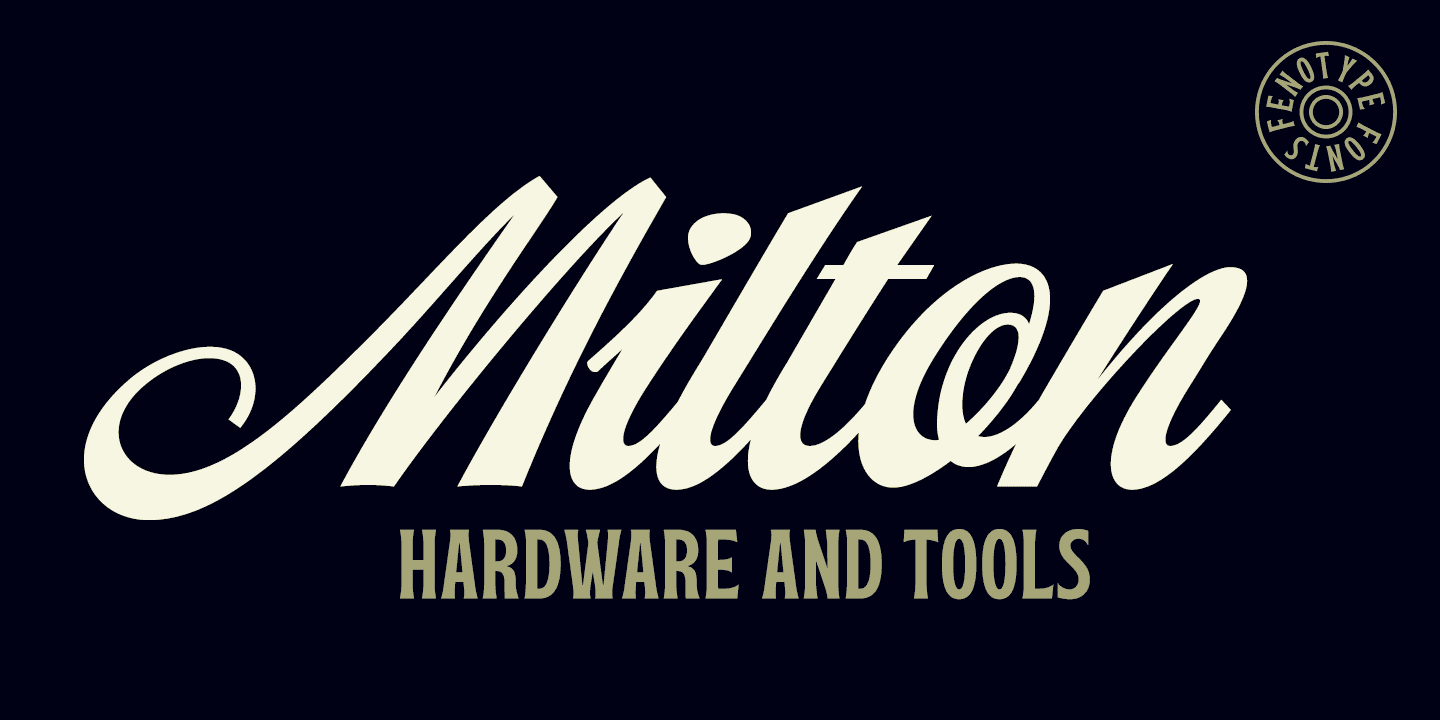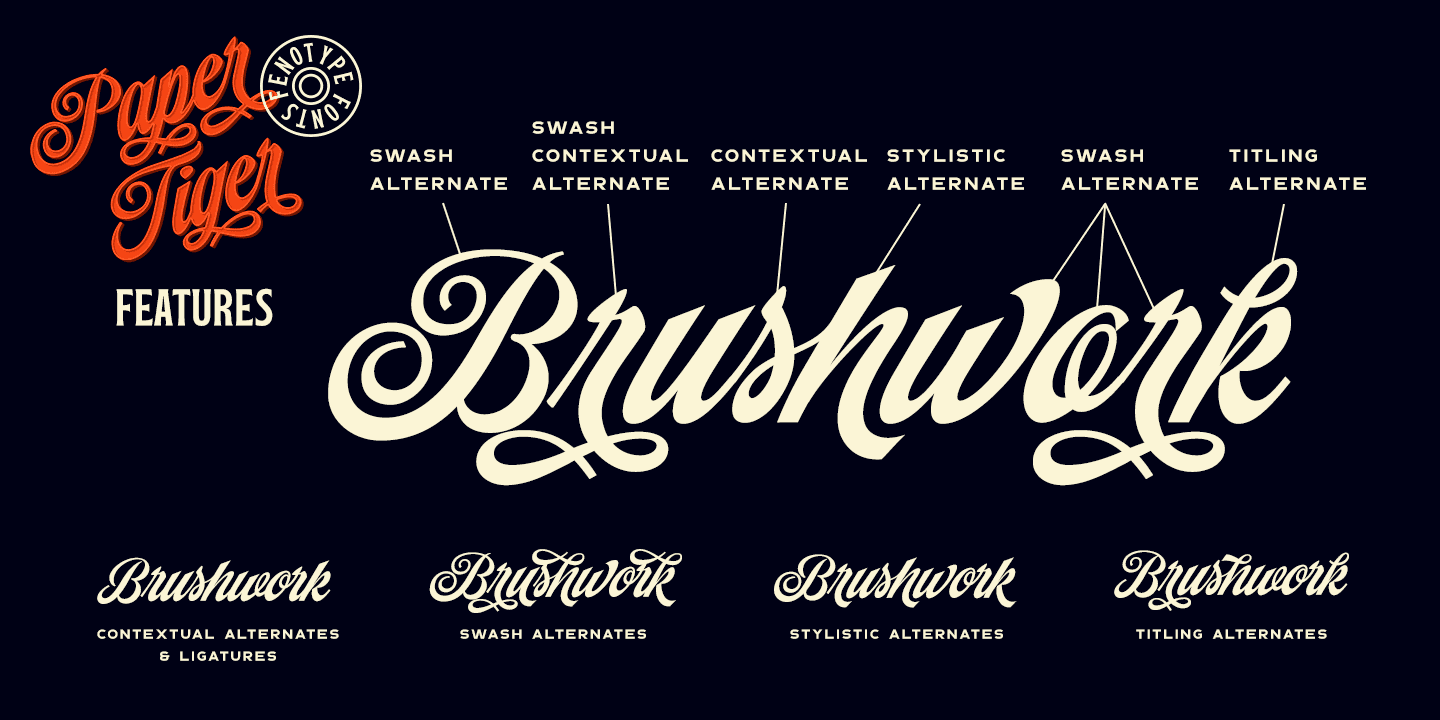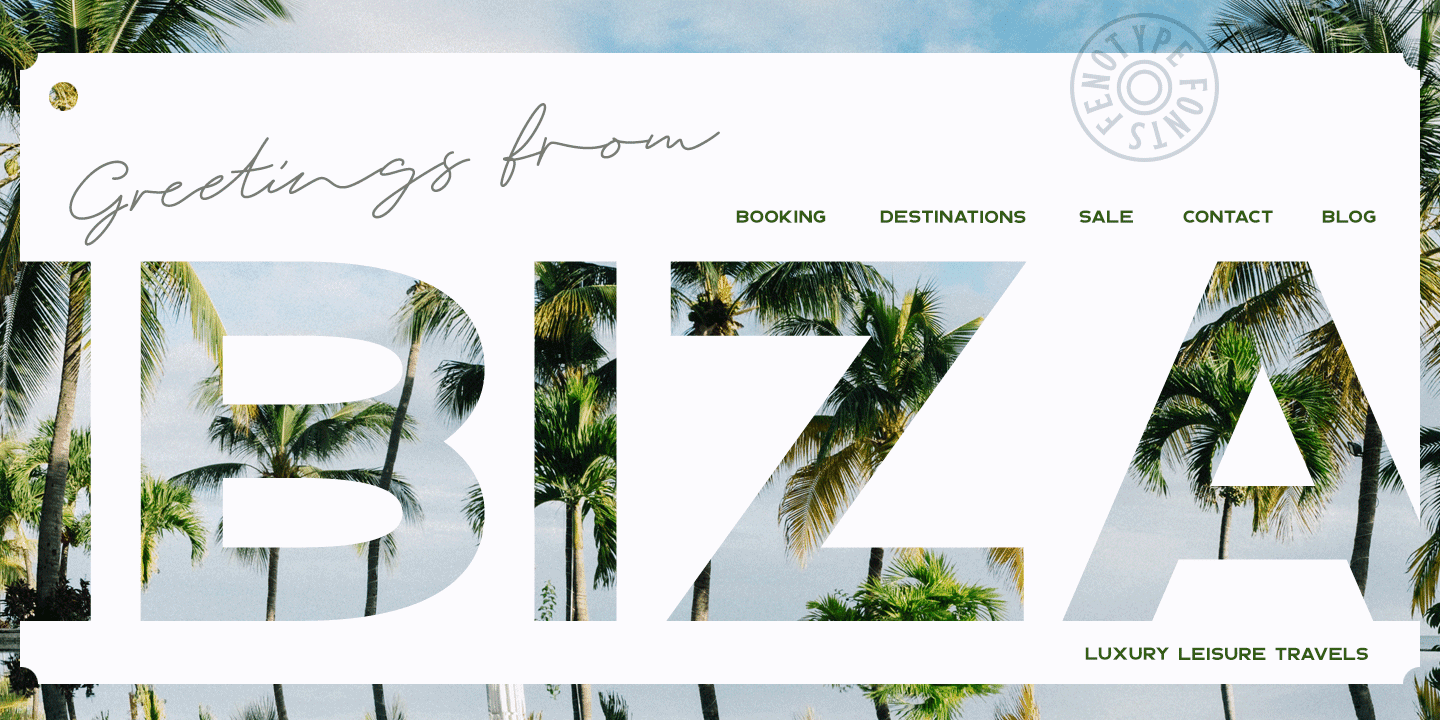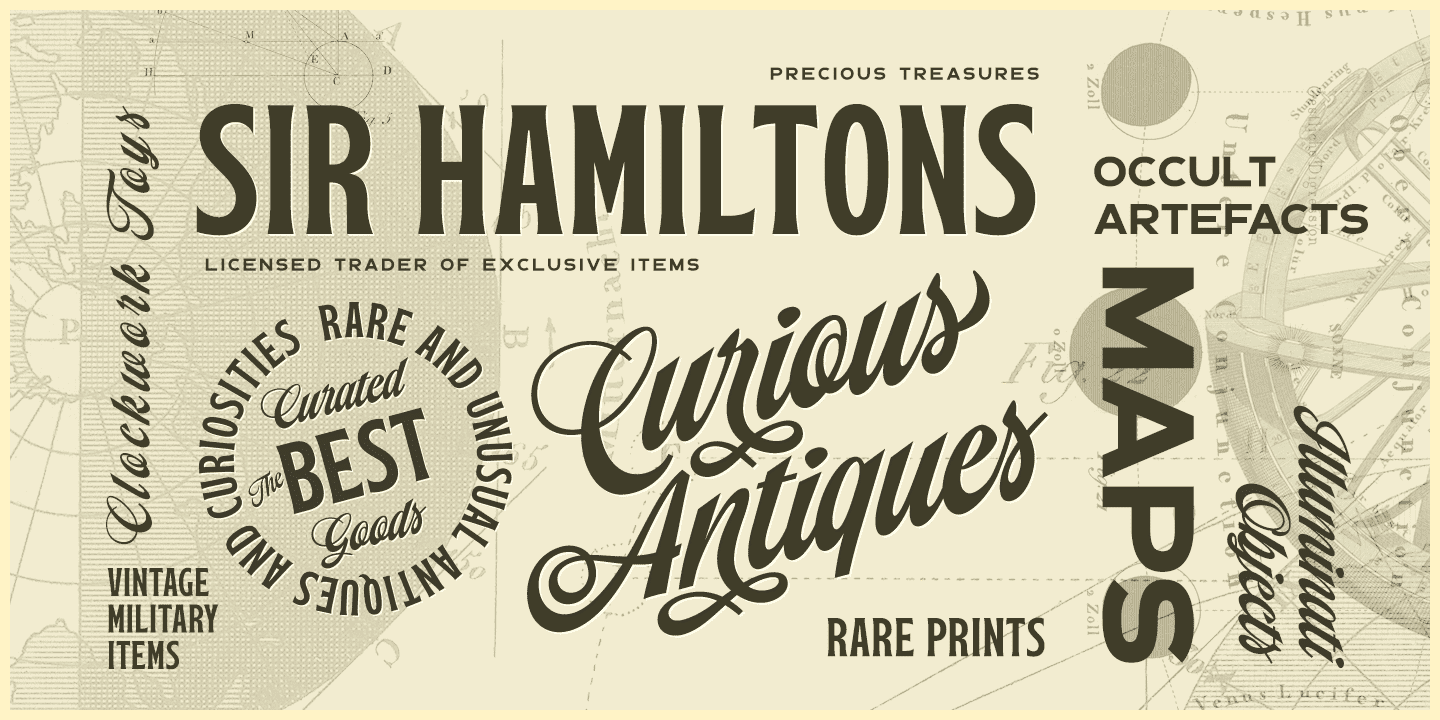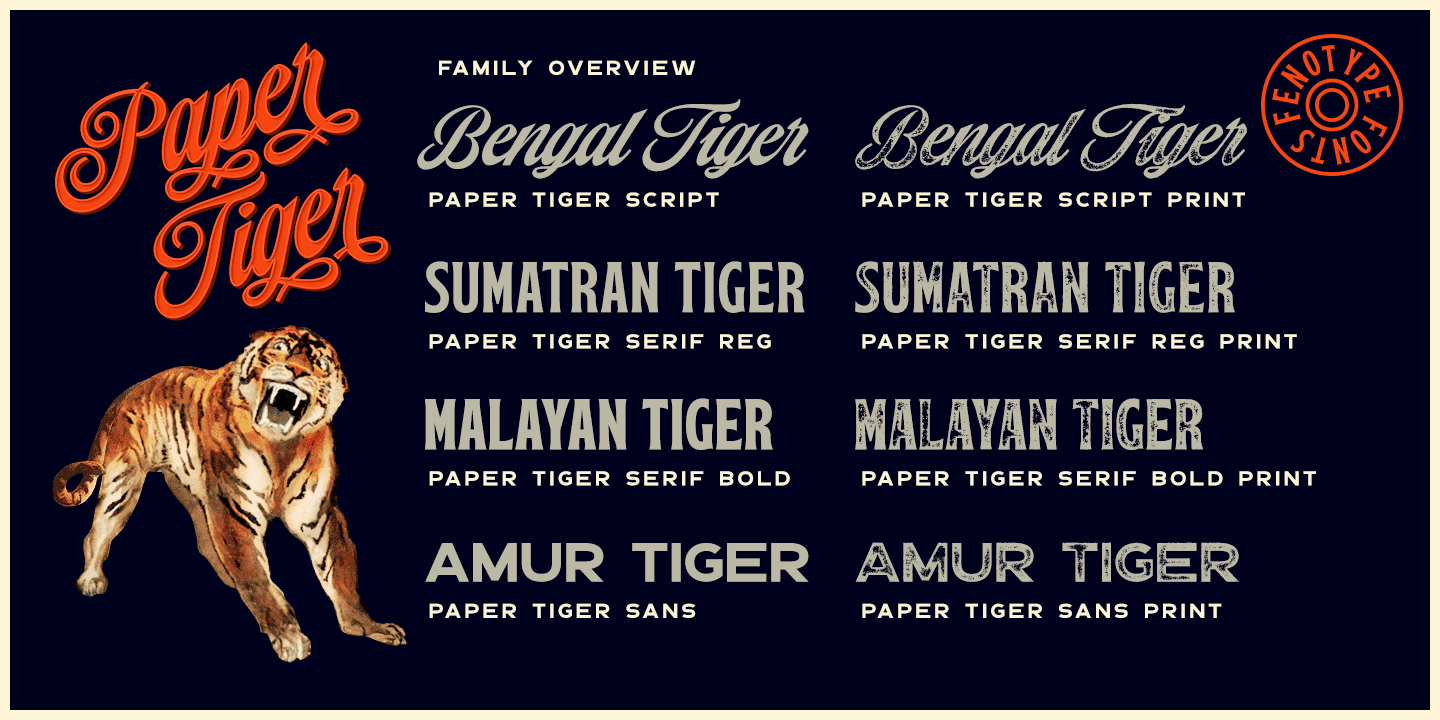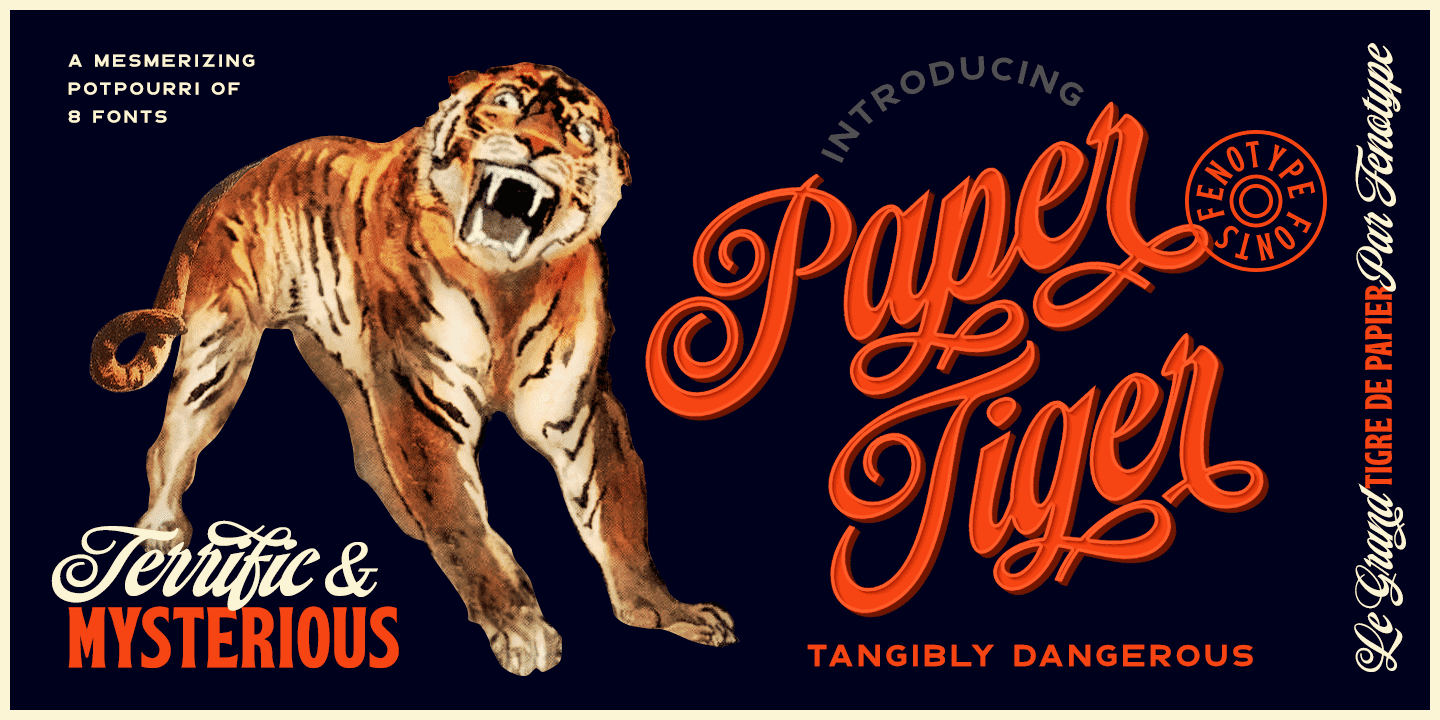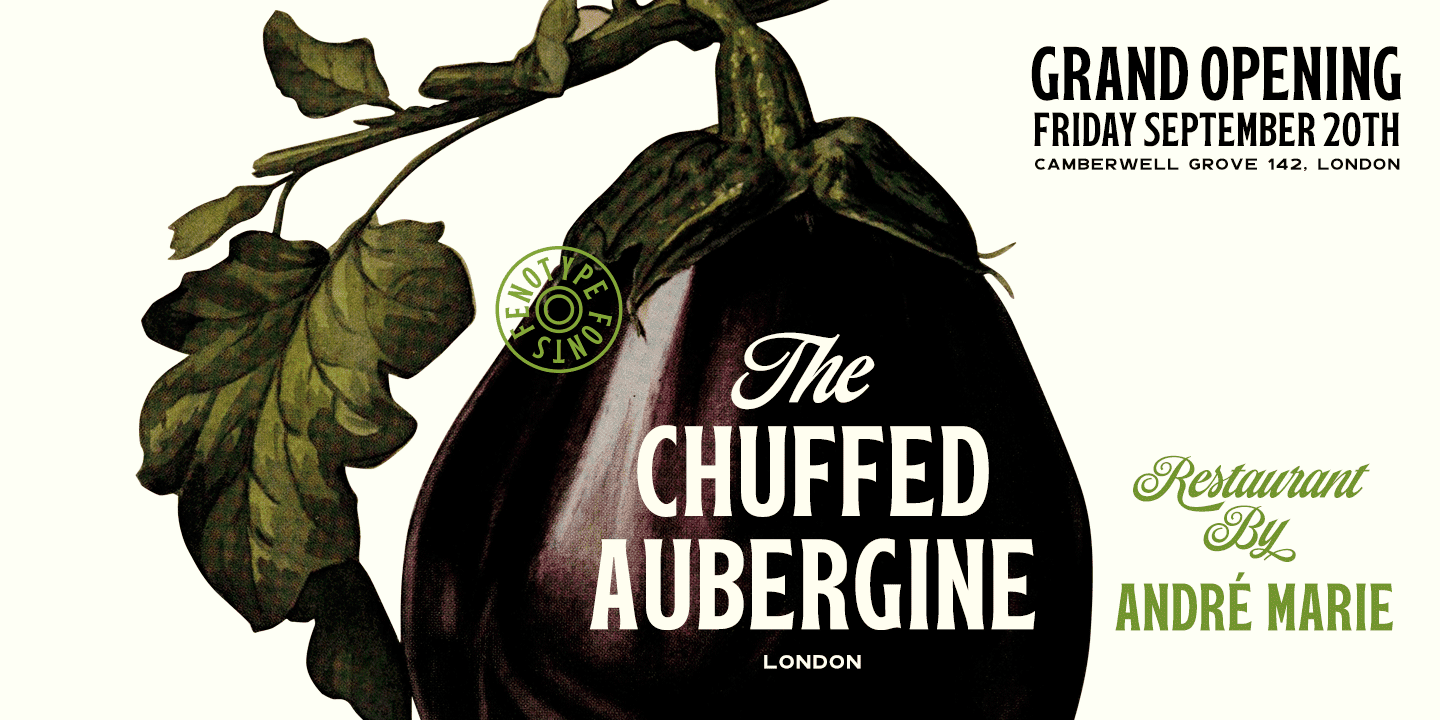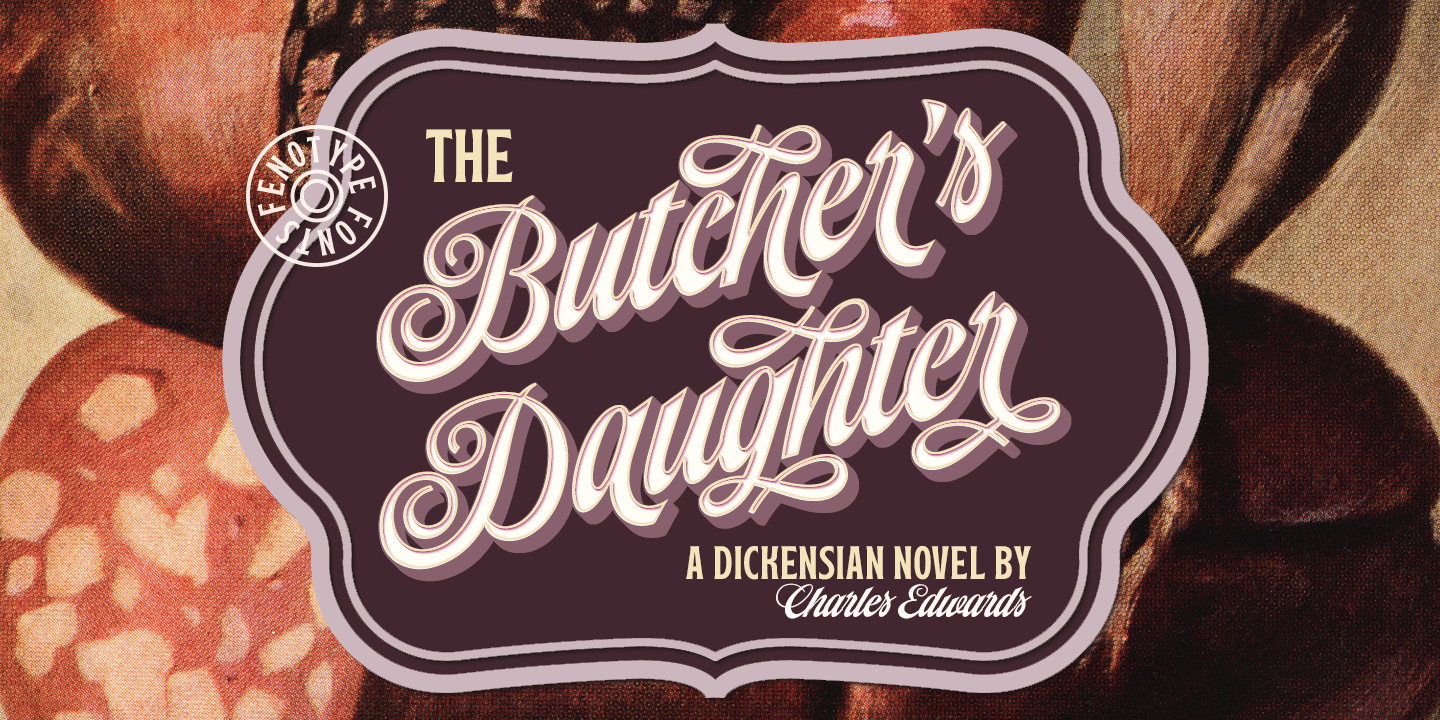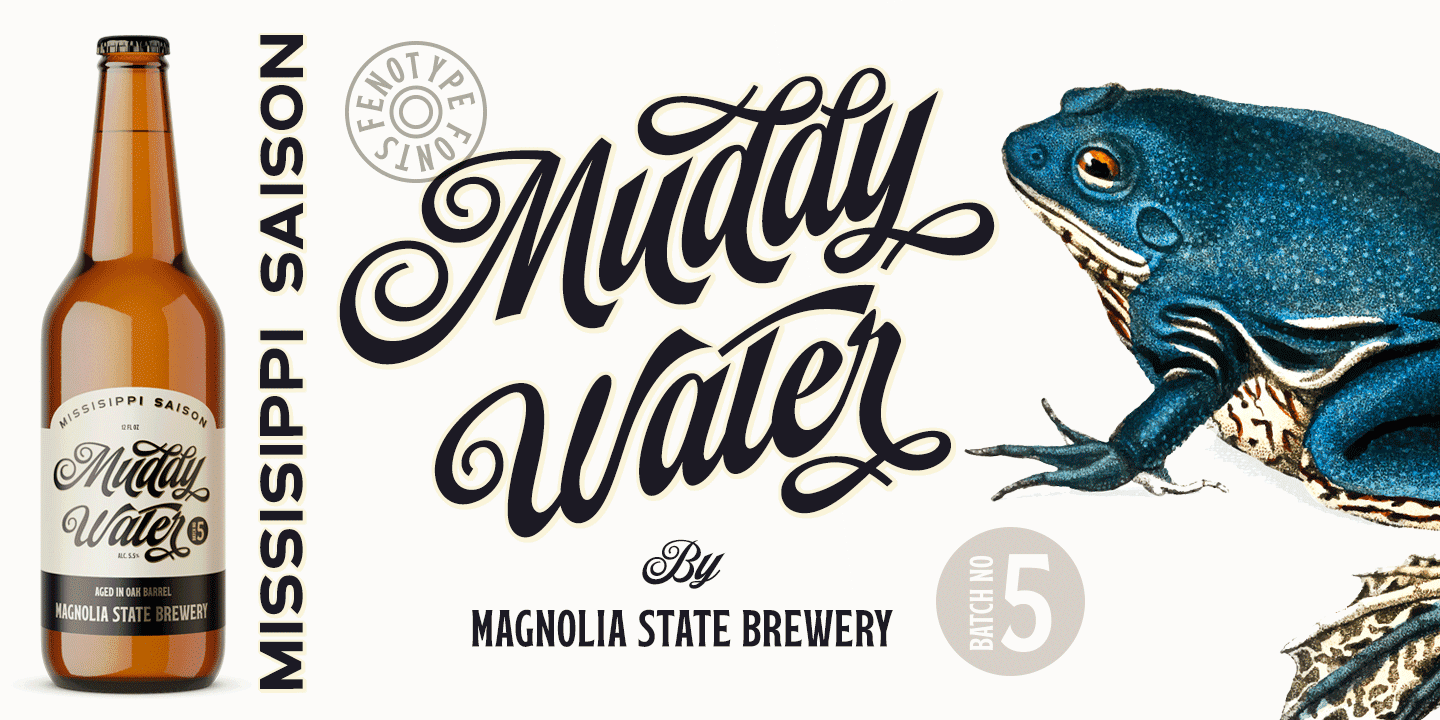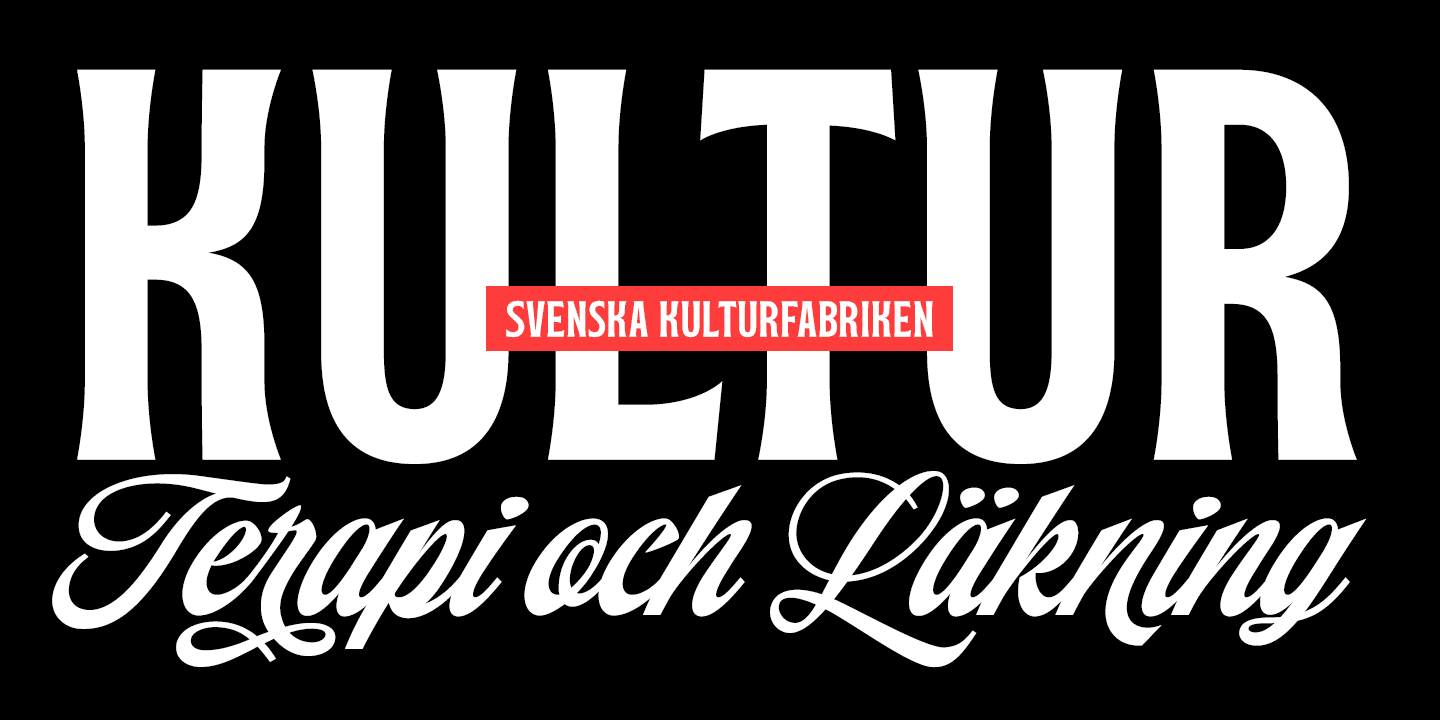
Paper Tiger Family (8 fonts)
Paper Tiger suits great for book covers, restaurant menus, food products, craft ale labels, organic teas, sport teams logos and any such. Paper Tiger Script is equipped with Contextual Alternates and Standard Ligatures that keep the connections smooth. Both features are automatically on. In addition it has Swash, Stylistic and Titling Alternates for some extra flair.